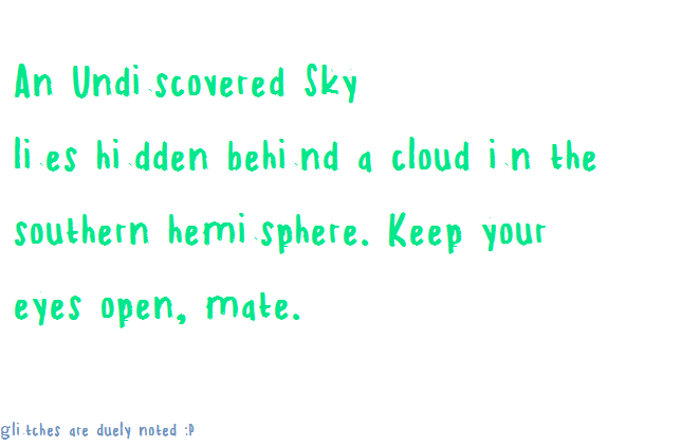
PaintFont.com Font
hey everyone just wanted to try out a new font software! there are a few glitches, but looks (mostly) good to me(:
13 years ago@Nate547 thanks! i'm still not quite sure what happened with some of the letters to make it spaced out like that. just a bit strange to me! (: